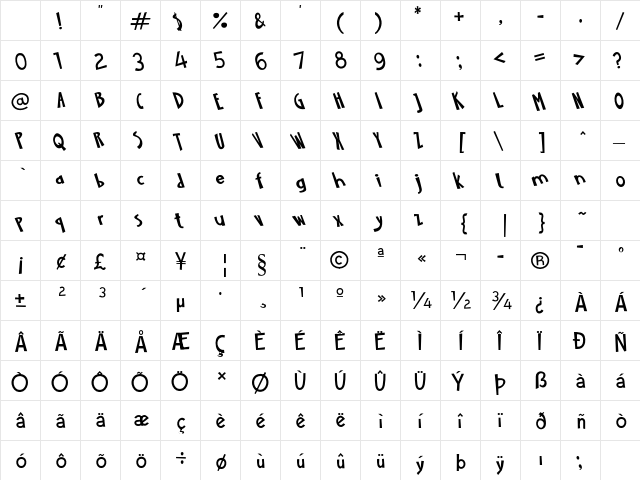
Complete Beach Party Cartoon Regular glyph index. Displaying only characters natively supported by Beach Party Cartoon Regular font.
Beach Party Cartoon has an approachable, lighthearted character - its loose, expressive forms are well-suited to children's content, casual branding, and fun-first design.
Font Pairing: Pairs well with a rounded or humanist sans for body copy, maintaining the friendly tone without relying on Beach Party Cartoon to carry extended reading.
Pro Tip: Use Beach Party Cartoon at larger display sizes where its expressive character can land. Pair with a clean, simple sans for body copy to maintain readability.